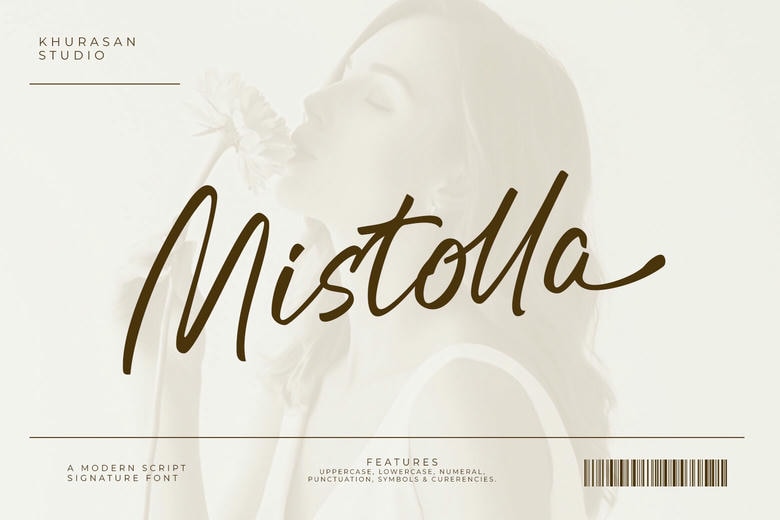
Mistolla Font
Mistolla is a natural brush script handwriting font, created to reproduce the beauty of natural hand-lettering. Each stroke is alive – smooth, expressive, full of personality. It provides a natural handwritten touch that makes your designs feel cozy, fashionable, and high-quality.
Ideal in logos, branding, product packaging, quotes, social media posts, wedding designs, and creative projects, Mistolla provides a personal and artistic touch that is immediately noticeable. Its flowing connections and dynamic brush texture give the impression of movement and emotion, and your text will be human and memorable.
Mistolla Handwritten Script Font